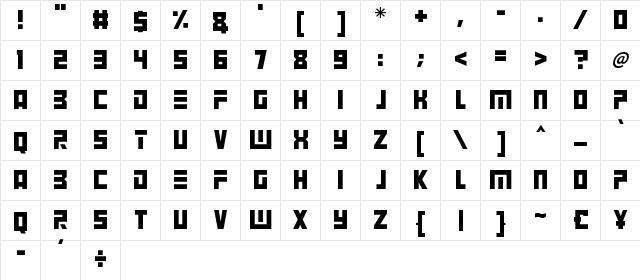
Angry Android Regular
Design Context for Angry Android Typeface
Angry Android is a composed and adaptable typeface that performs quietly and consistently across a wide range of design contexts.